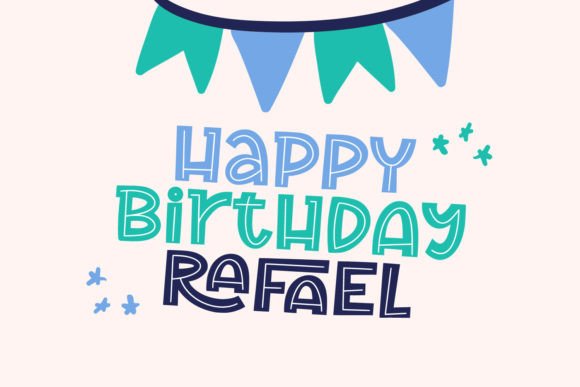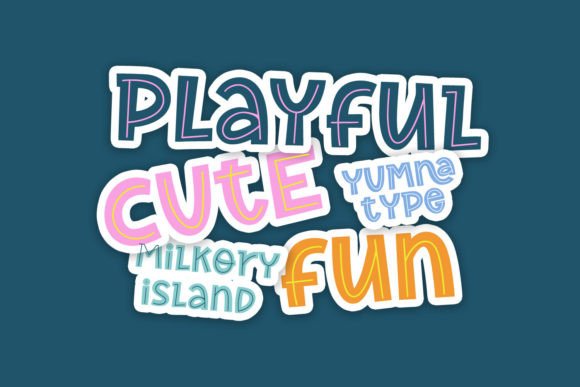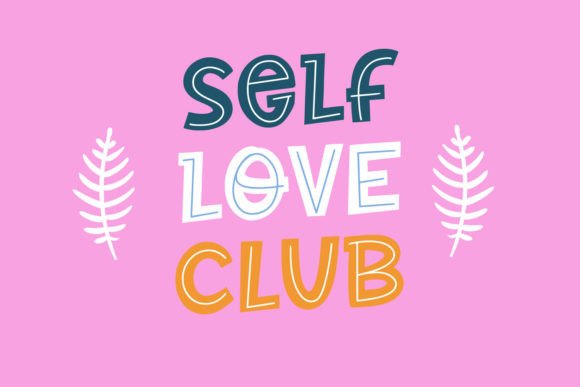
Introduction to Milkory Island Font
Do you remember the thrill of discovering a hidden treasure in your favorite childhood storybook? The excitement of exploring a magical world where anything is possible and imagination knows no bounds? That sense of wonder and enchantment is exactly what the Milkory Island Font embodies.
As a designer, you’re always on the lookout for unique and captivating design resources to elevate your creative projects. And that’s exactly what the Milkory Island Font offers – a high-quality, whimsical display font that transports your audience to a world of playful imagination and charm. With its thick weight and rounded shapes, this font is perfect for adding a touch of childhood wonder to your designs.
Whether you’re working on a design project or simply looking for a free download to spice up your social media posts, the Milkory Island Font is an invaluable resource that’s sure to add a touch of magic to your work.
Key Features of Milkory Island Font
- High-quality design resource for creative projects, suitable for various applications such as logos, branding, and graphics.
- Features a transparent background, allowing for seamless integration into any design project.
- Includes multiple font styles, including bold and italic variations, to cater to different design needs.
- Designed with a high resolution of 300 DPI, ensuring crisp and clear text rendering.
- Perfect for designers seeking a unique and creative font for their next project, with a distinctive aesthetic that sets it apart from other fonts.
Honest Review: Milkory Island Font
I recently came across the Milkory Island Font, and I must say, it’s a beautiful addition to any design project. As a designer, I appreciate high-quality design resources that can elevate my work and save me time.
Here’s what I like about the Milkory Island Font: ✨ It has a transparent background, which makes it perfect for use on various backgrounds without any distractions. ✨ The font is highly customizable, allowing me to adjust the size, color, and style to fit my creative project’s needs. ✨ The free download option is a huge plus, making it accessible to designers of all levels.
However, there are a few limitations to consider: ⚠️ The font may not be suitable for all types of projects, especially those requiring a more formal tone. ⚠️ Some users may find the font’s style too whimsical or playful, which may not appeal to everyone.
Overall, I’m impressed with the Milkory Island Font, and I think it’s a great design resource for creative projects. While it may not be perfect for every project, it’s a high-quality font that can add a touch of personality and style to your work.
Use the Milkory Island Font in combination with other design resources to create unique and eye-catching designs. Experiment with different font sizes, colors, and styles to achieve the desired look. Take advantage of the transparent background feature to add depth and dimension to your designs.
The Milkory Island Font is ideal for use in various design projects, including logos, business cards, brochures, and infographics. Its high-quality design and transparent background make it perfect for creating professional-looking designs with ease.